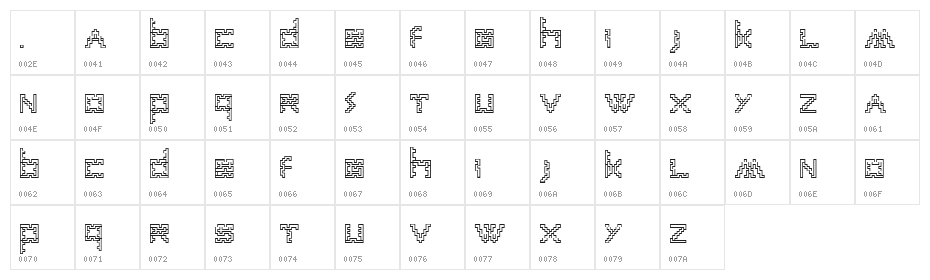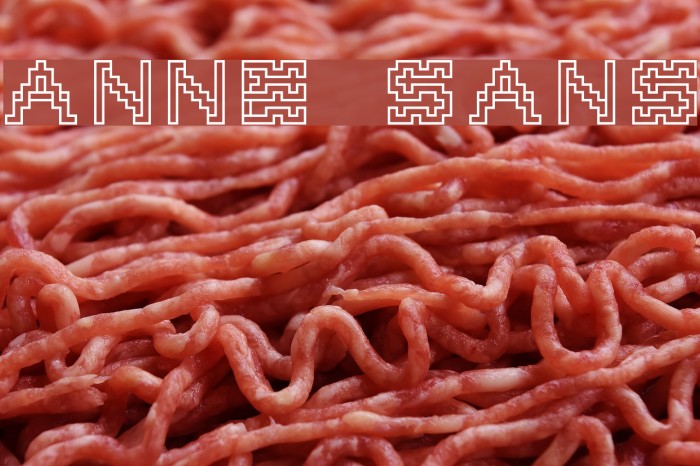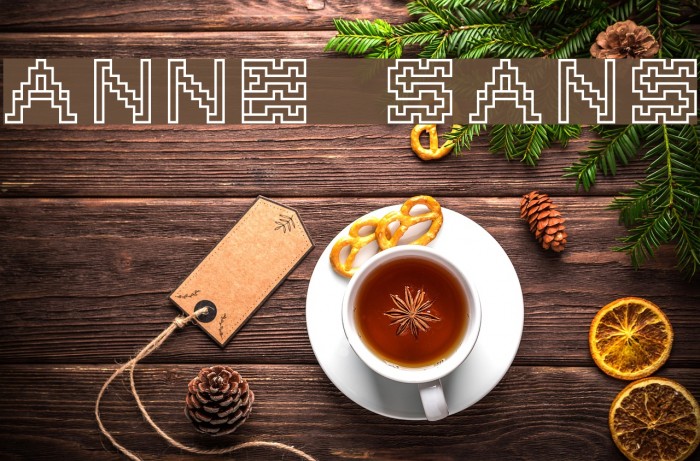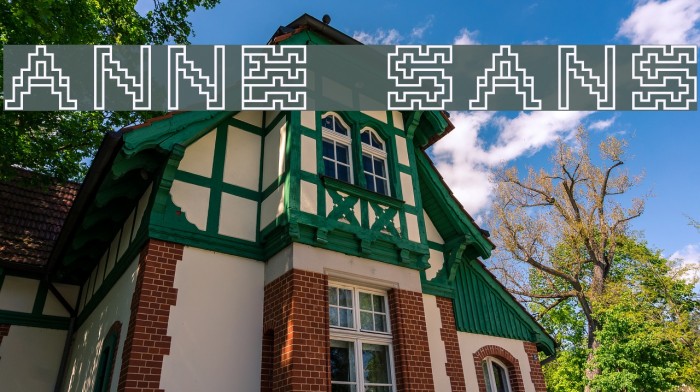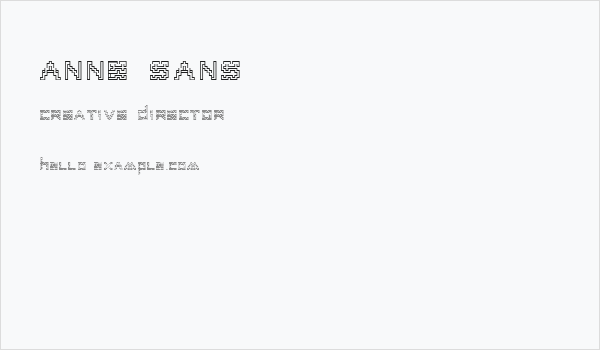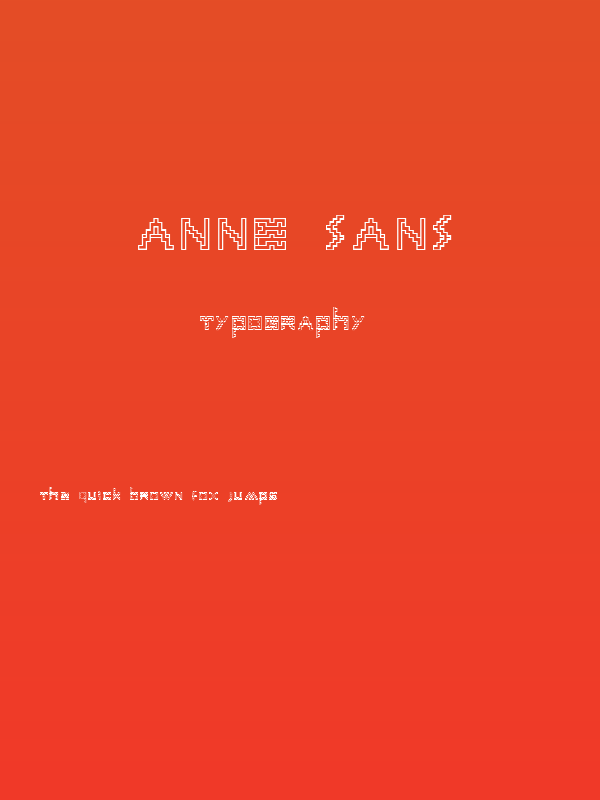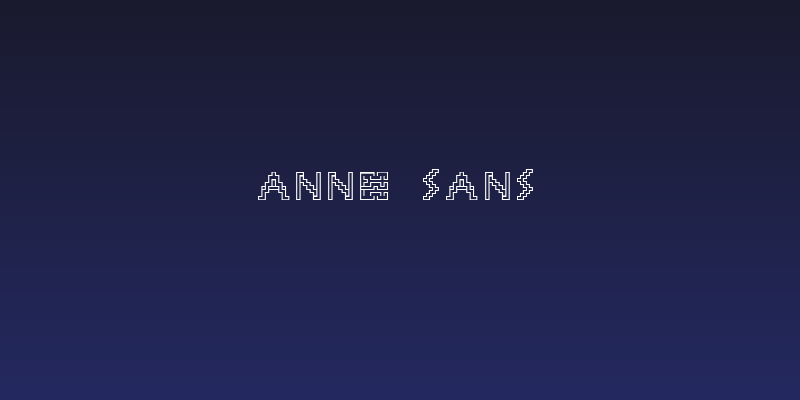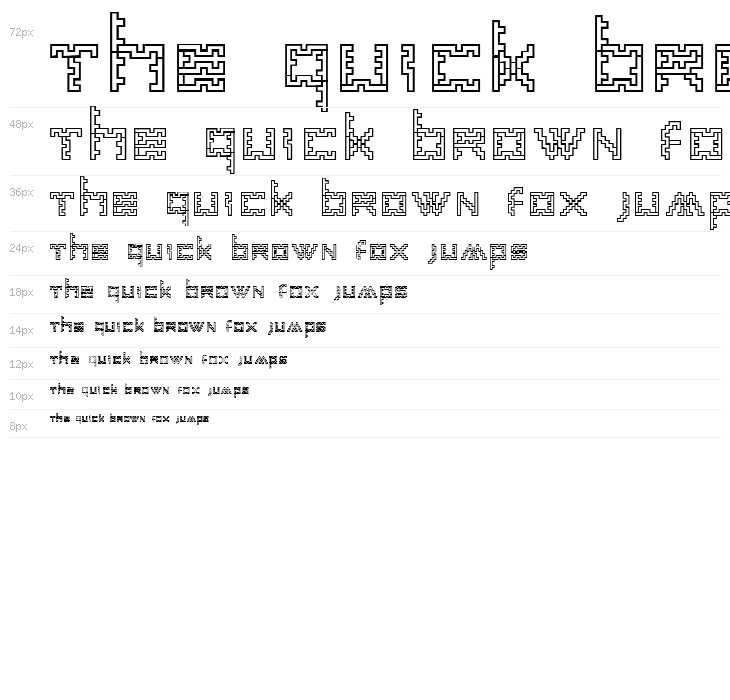
Anne sans Font
Anne sans Description
This font features a unique, maze-like design with each character formed by a series of interconnected lines, creating a pixelated effect. The letters are constructed with a consistent stroke width, giving them a cohesive appearance. The geometric style is reminiscent of early digital graphics, making it stand out with its retro, tech-inspired aesthetic. The uppercase and lowercase letters maintain the same intricate pattern, ensuring uniformity across the typeface. The numbers and special characters follow the same design principles, providing a complete and versatile set for creative projects.
| Overall Style | Retro |
| Use Case | Logos, Posters, Digital Art |
| Proposed Projects | Ideal for video game graphics, tech-themed posters, and digital art projects. |